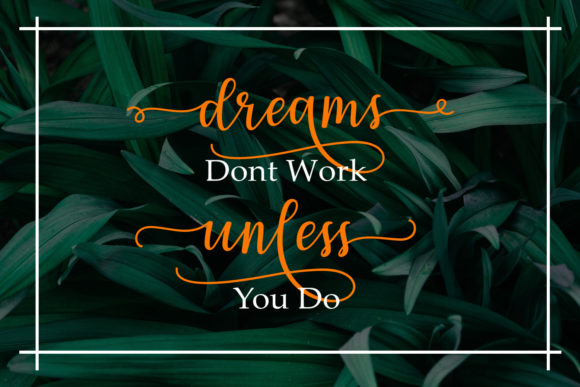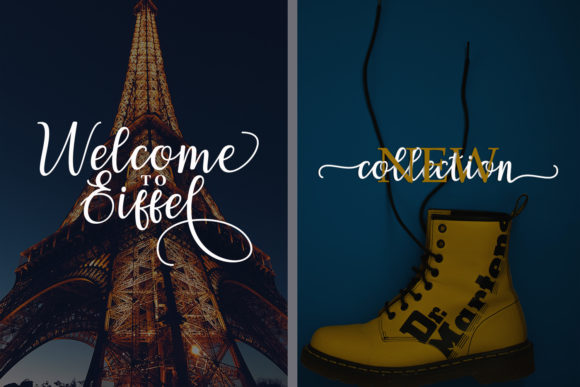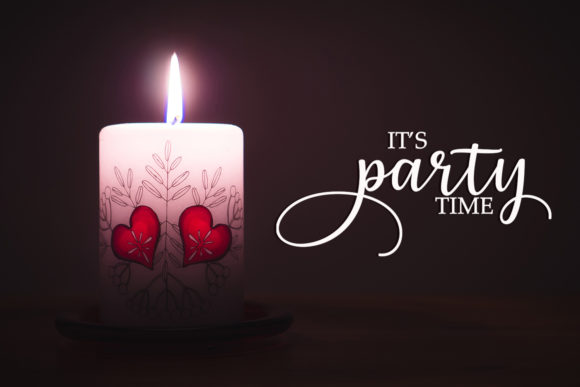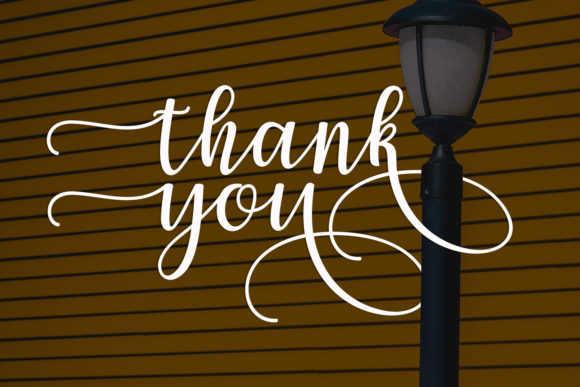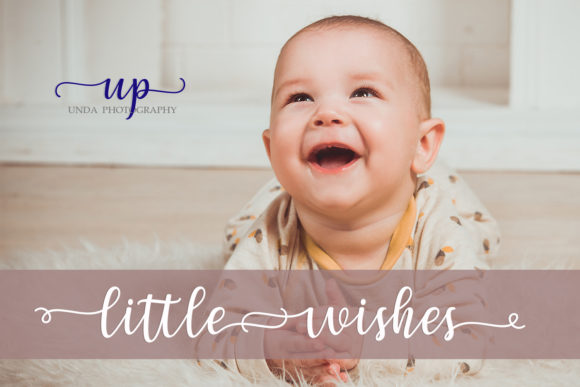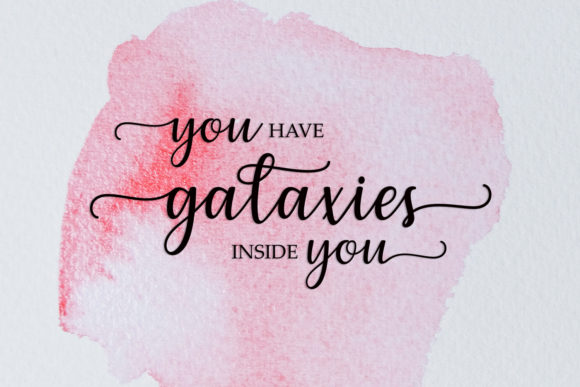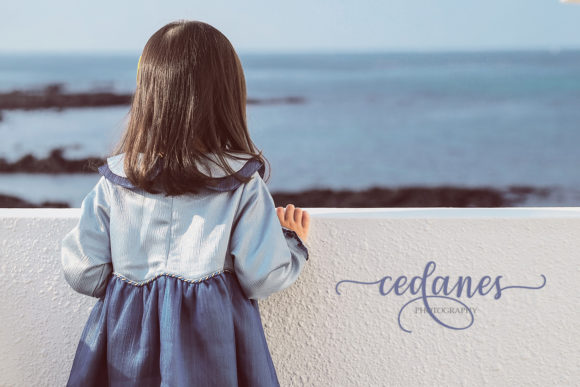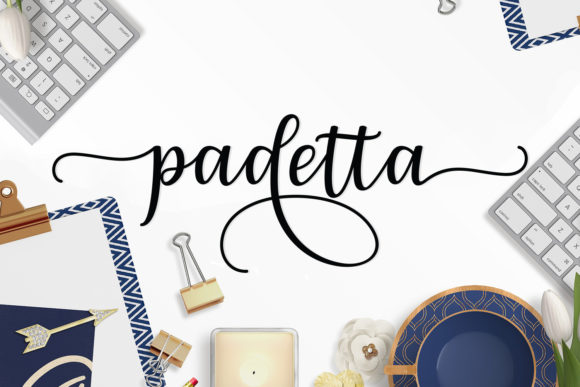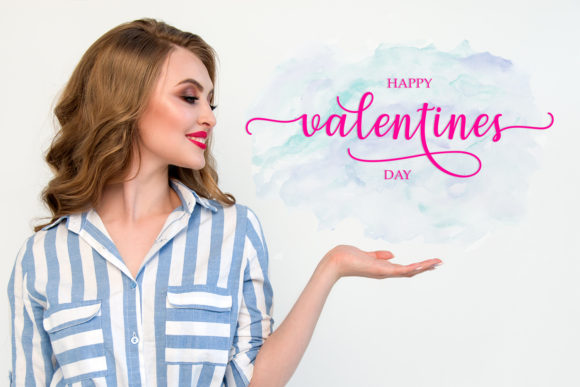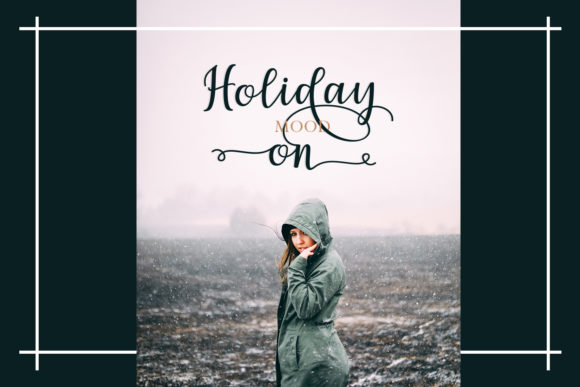
Chetlie Script Font
About Chetlie Script Font
Chetlie Script is a fresh & modern script with a handmade calligraphy style, decorative characters, and a dancing baseline! It is beautiful on a variety of projects!